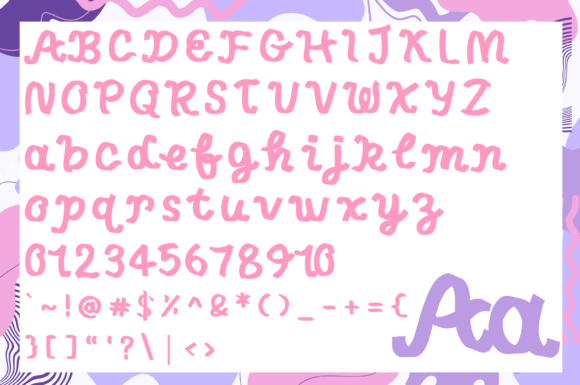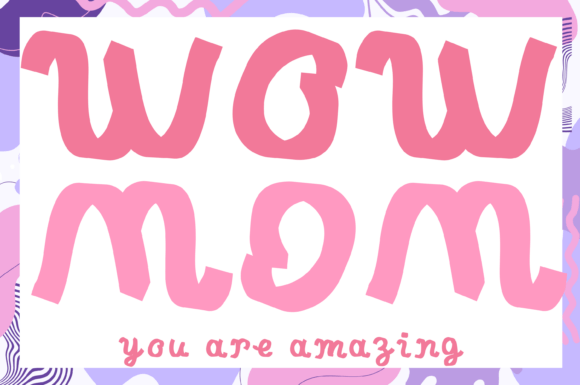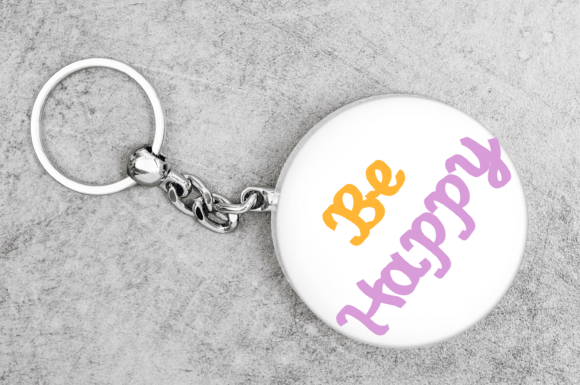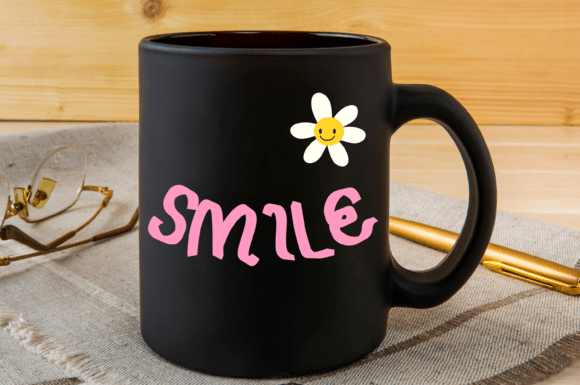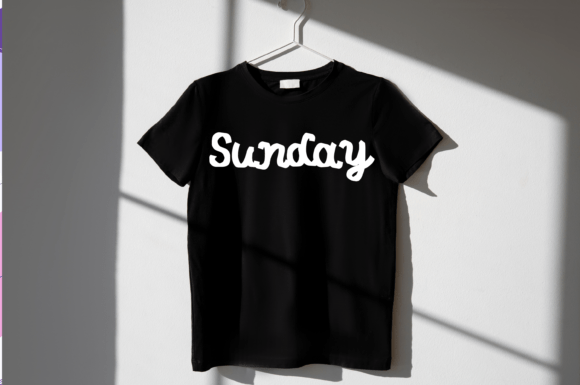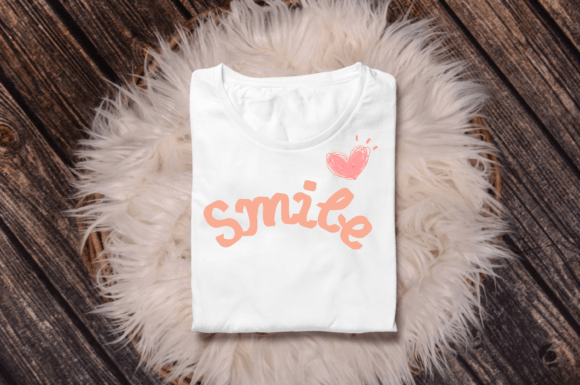
Introduction to Chunky Street Font Font
Fonts play a crucial role in design, and the Chunky Street Font font is a typeface that brings both character and versatility to any project. Whether you’re working on a branding project, a website, or a print design, the Chunky Street Font font offers a unique style that can elevate your work.
Chunky Street is a playful and expressive handwritten font that blends the charm of casual brush strokes with a bold street-art twist.
Each letterform is carefully crafted to feel spontaneous yet structured, featuring slightly exaggerated curves, whimsical tails, and angular cuts that give it a rhythmic, bouncing flow The characters maintain a consistent weight, with rounded terminals and quirky angles that inject personality into every glyph.
Key Features of Chunky Street Font Font
Why Choose Chunky Street Font Font?
The Chunky Street Font font is more than just a typeface – it’s a design tool that helps you communicate your message with style and clarity. Its unique character set and versatile design make it suitable for a wide range of applications, from elegant invitations to bold headlines.
With its carefully crafted letterforms and balanced proportions, the Chunky Street Font font ensures readability and visual appeal across all mediums.
What makes Chunky Street Font font special?
The Chunky Street Font font stands out with its unique design, exceptional readability, and versatility across various design applications.